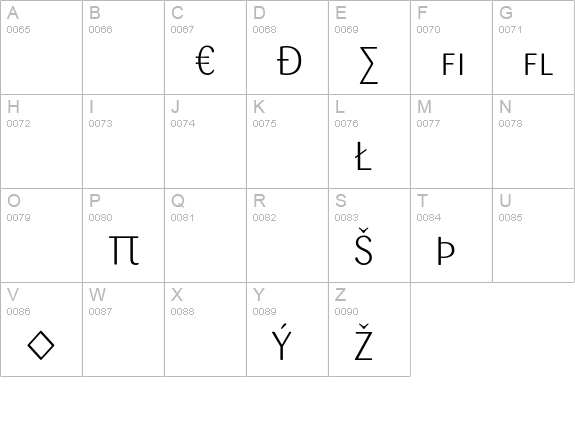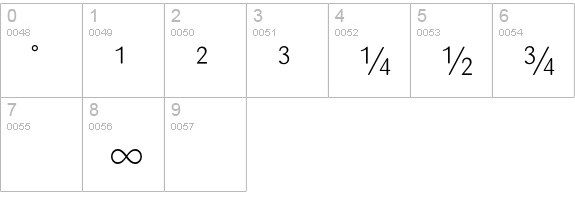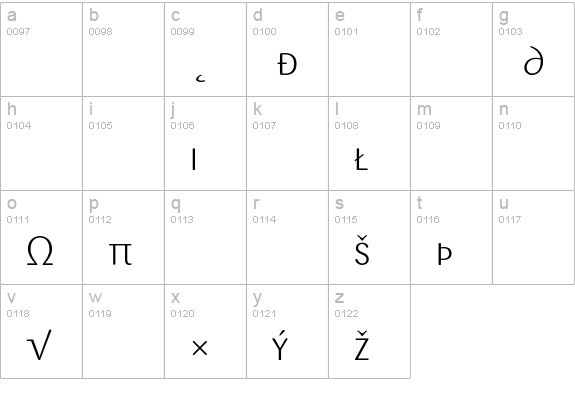
Sari-LightCapsExp Font Details
Sari-LightCapsExp font is a beautifully crafted typeface that exudes elegance and sophistication. Its slender and delicate letterforms give it a unique charm, making it perfect for projects that require a touch of refinement. The fluid curves and graceful strokes of Sari-LightCapsExp font create a harmonious balance between traditional and modern aesthetics. Its clean and legible design ensures that every character is easily distinguishable, allowing for smooth and effortless reading. This font is not only visually stunning but also highly versatile. It is suitable for a wide range of applications, including branding, editorial design, packaging, and more. Its understated beauty will enhance any design project, adding a touch of class and sophistication. One of the best things about Sari-LightCapsExp font is that it is freely available to download at FontsMarket.com. This means that you can enjoy its exceptional quality and timeless elegance without any cost. Whether you are a professional designer or a passionate hobbyist, this font offers you the opportunity to create striking visuals without breaking the bank. So why wait? Download Sari-LightCapsExp font today and elevate your designs to new heights. With its free availability and impeccable craftsmanship, this font is a must-have for anyone seeking to make a lasting impression.